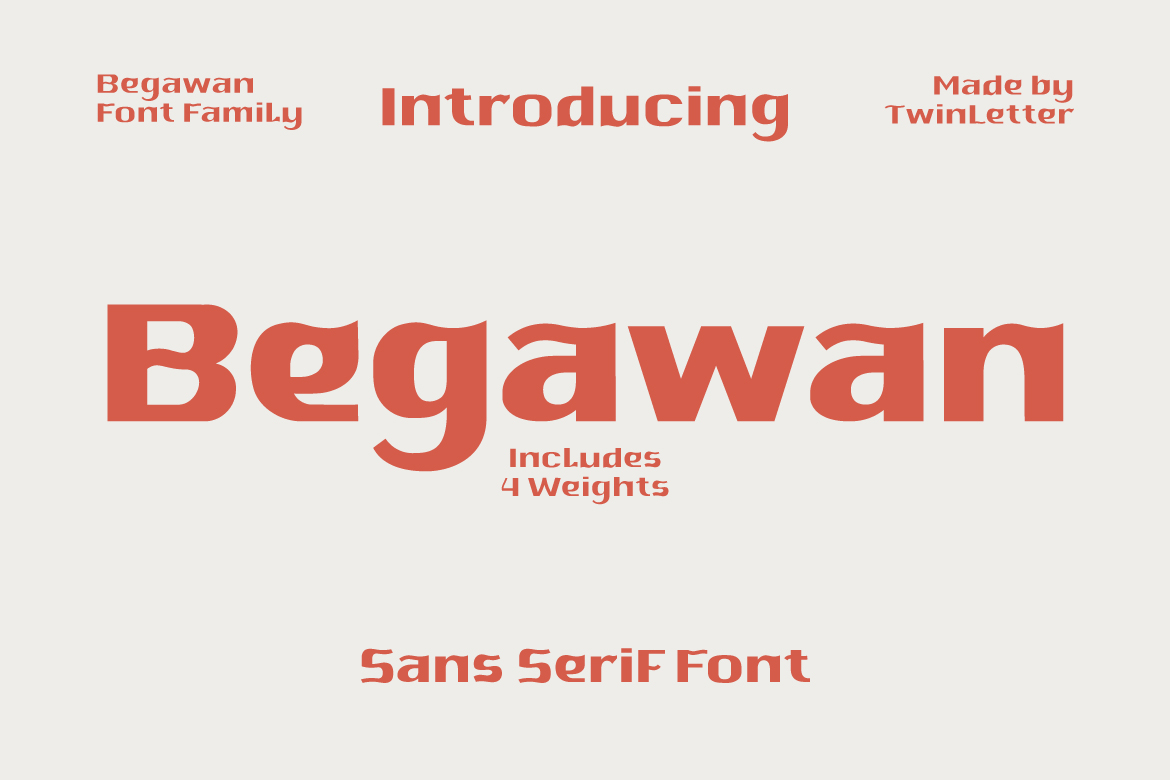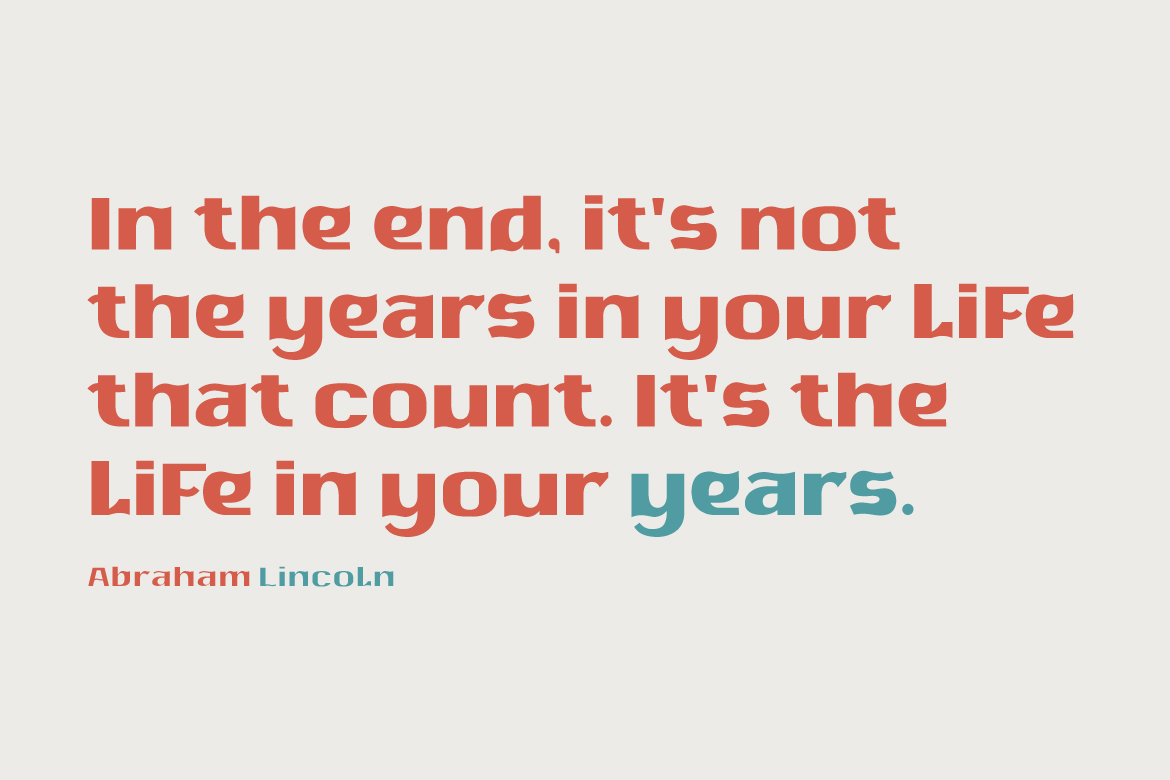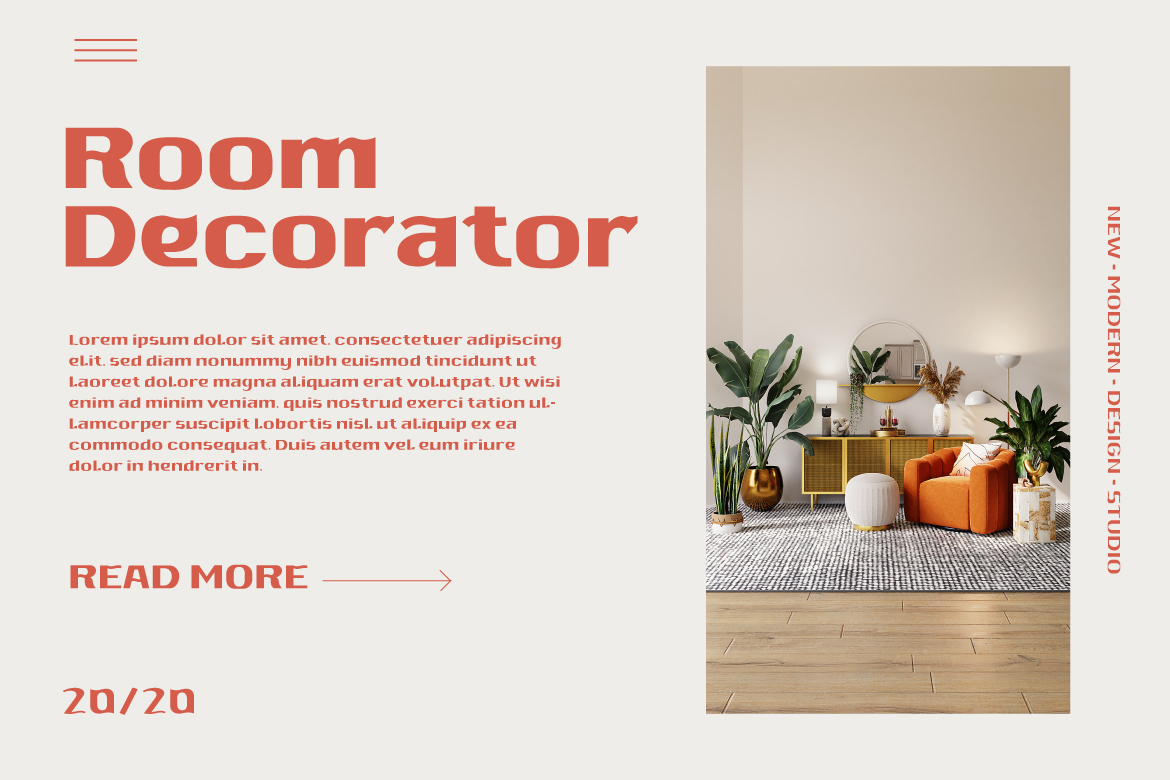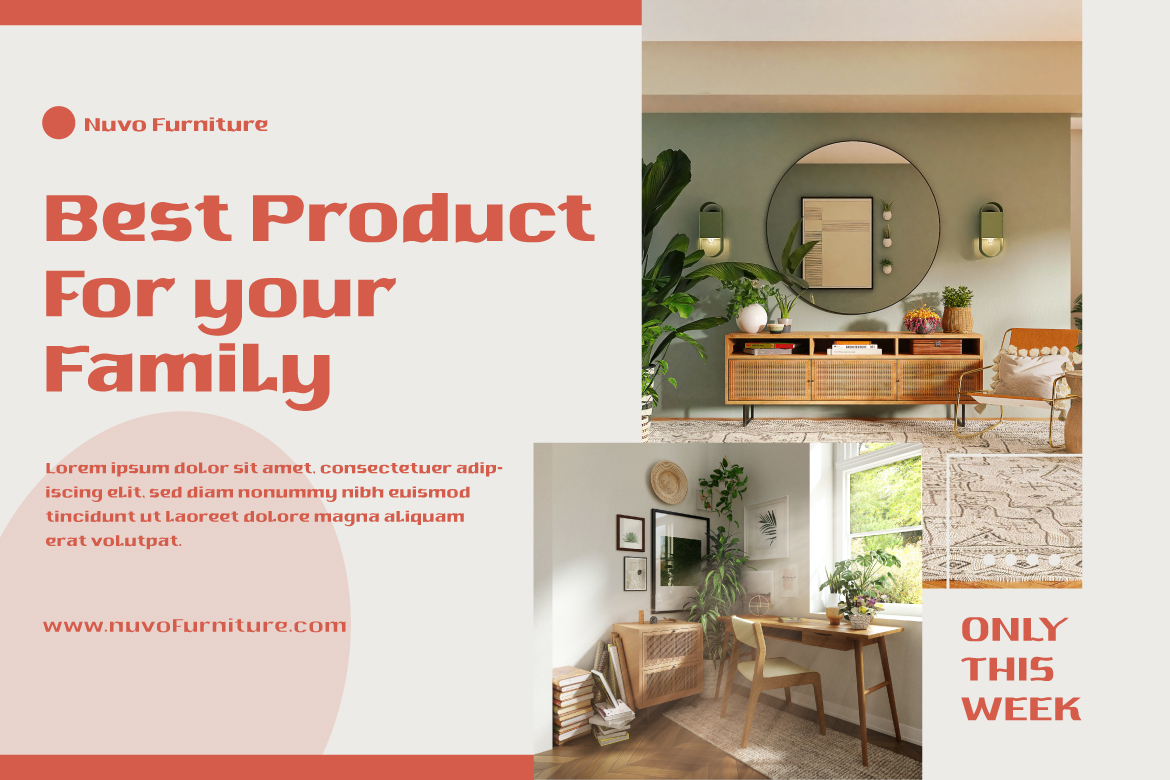
Begawan Font
Begawan Font is a modern sans serif typeface designed in the style of beach waves to add a unique touch to all of your special projects. Start using this typeface to make your visuals pop. It’s bold, bombastic, and stands out. Your entire audience will be blown away and will want to learn more about your idea. of course, your various design projects will be perfect and extraordinary if you use this font because this font is equipped with a font family, both for titles and subtitles and sentence text, start using our fonts for your extraordinary projects.